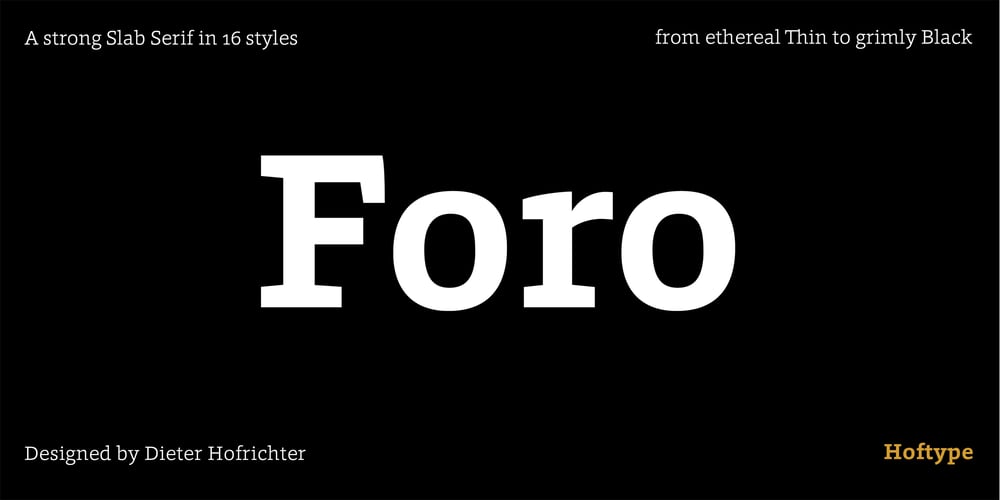
Foro Font Family was designed by Dieter Hofrichter and published by Hoftype. Foro contains 16 styles and family package options. Foro was designed in 2012 to be a slab serif with an appealing flow, warm, and less harsh than many slab serifs. It evinces an attachment to humanistic shapes, models and proportions. Foro’s demonstrated strength renders it excellent for texts, and its clear and distinct details are an advantage in display sizes. Foro comes in 16 styles and in OpenType format. All weights contain standard ligatures, proportional lining figures, tabular lining figures, proportional old style figures, lining old style figures, matching currency symbols, fraction- and scientific numerals and arrows. Foro supports Western European, Central and Eastern European languages.